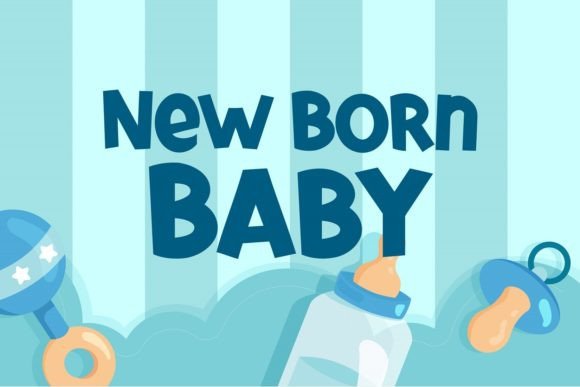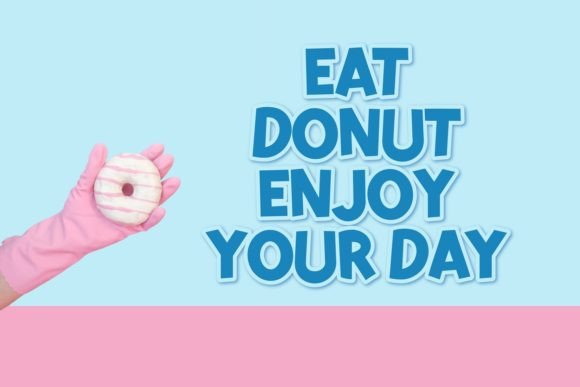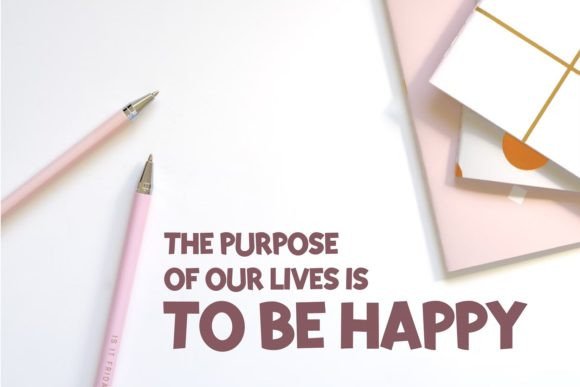
Introduction to Koya Soto Font
As a designer, there’s nothing quite like the thrill of discovering a new font that sparks creativity and sets your project apart. For me, that moment came when I stumbled upon the Koya Soto Font – a playful display font that’s perfect for anything from kids’ menus to fun logos.
With its fresh and bubbly design, the Koya Soto Font is a valuable resource for designers looking to add a touch of whimsy to their creative projects. Whether you’re working on a high-quality design for a client or a personal project, this font is sure to bring a smile to your face and a sense of excitement to your work. Plus, with its transparent background option, you can easily integrate it into your designs without any hassle.
Key Features of Koya Soto Font
- High-quality design resource with a unique, elegant style suitable for creative projects.
- Perfect for use in logo design, typography, and other creative projects where a unique, elegant font is required.
Honest Review: Koya Soto Font
I recently stumbled upon the Koya Soto Font, a free design resource that caught my attention. As a designer, I’m always on the lookout for high-quality fonts that can elevate my creative projects. Let’s dive into the details.
- ✨ The font is incredibly versatile, suitable for a wide range of design applications, from web design to print materials.
- ⚠️ The font may not be suitable for very small text sizes, as the letters can become slightly distorted.
- ⚠️ The font family is relatively small, so you may not find as many styles or weights as you would with a commercial font.
Overall, I’m impressed with the Koya Soto Font. While it has some limitations, its versatility, high quality, and free download make it a valuable addition to any designer’s toolkit. I’d definitely recommend it for creative projects where a clean, modern look is desired.
Tips for Getting the Most Out of Koya Soto Font
For the best results, use the Koya Soto Font on a transparent background or with a high-quality image behind it. This will allow the font to stand out and add a touch of elegance to your design. You can also experiment with different font sizes and colors to create a unique look.
Common Use Cases for Koya Soto Font
The Koya Soto Font is perfect for creative projects such as invitations, posters, and social media graphics. Its high-quality design and transparent background make it an ideal choice for adding a touch of sophistication to your design. With its free download option